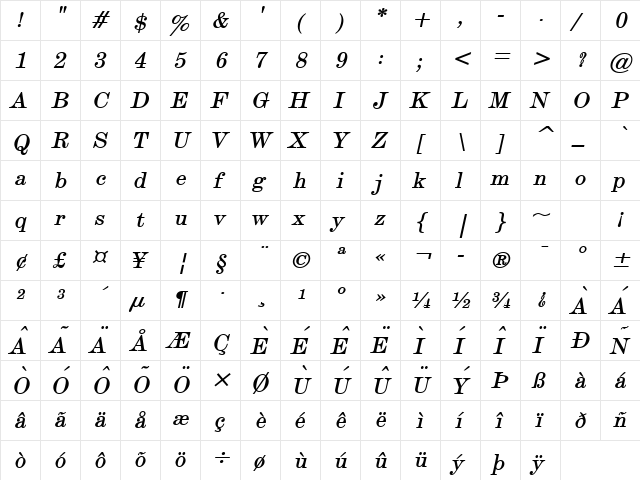
Devine BoldItalic
Design Context for Devine Typeface
Devine takes a measured approach to typography — its balanced proportions and neutral character make it a reliable workhorse for both digital and print work. The dynamic lean of this cut emphasises speed and emphasis in any layout. The heavy weight commands attention and anchors typographic hierarchies.